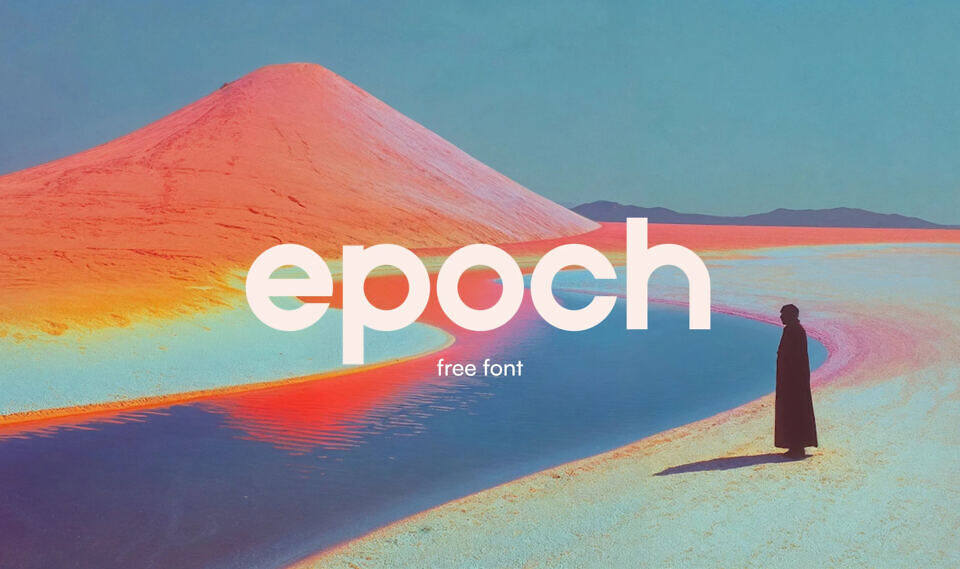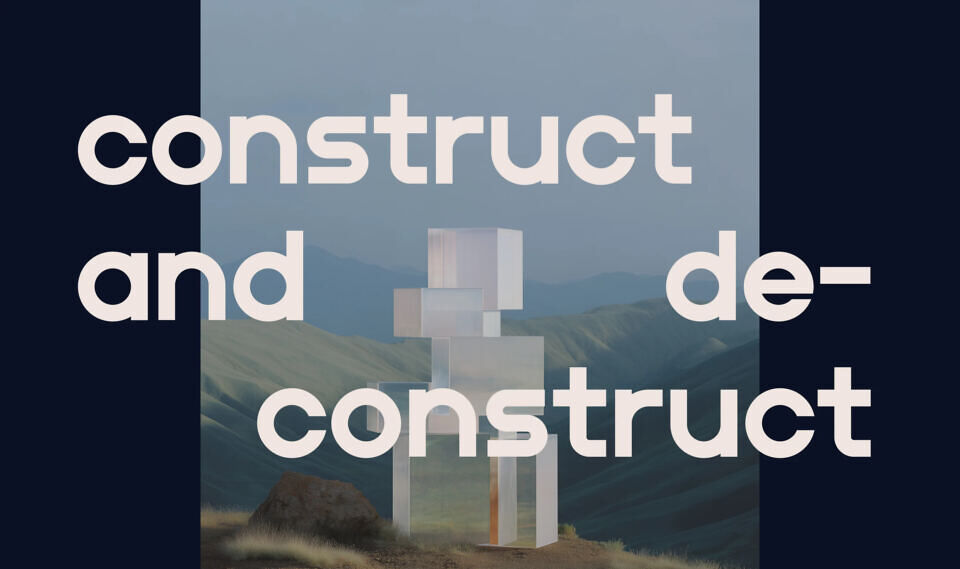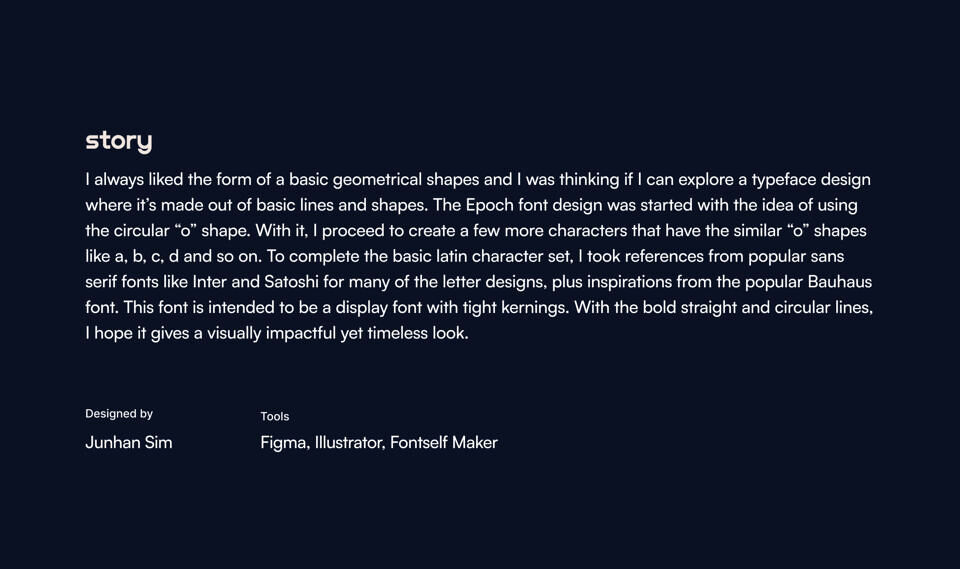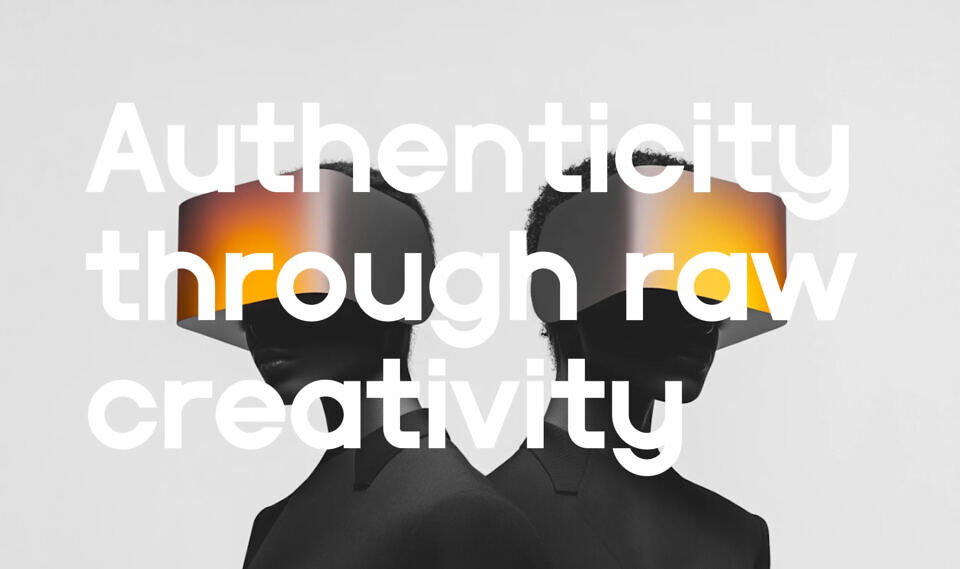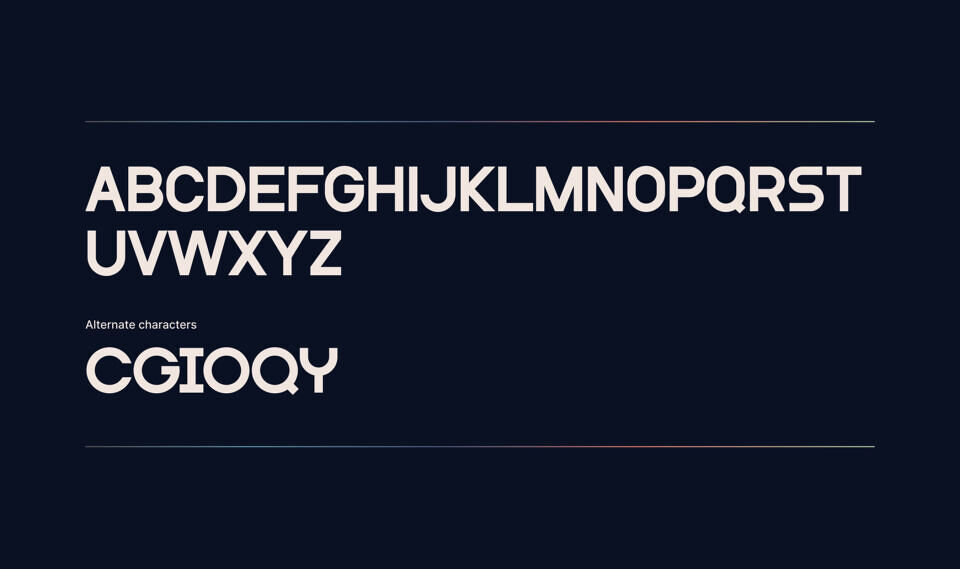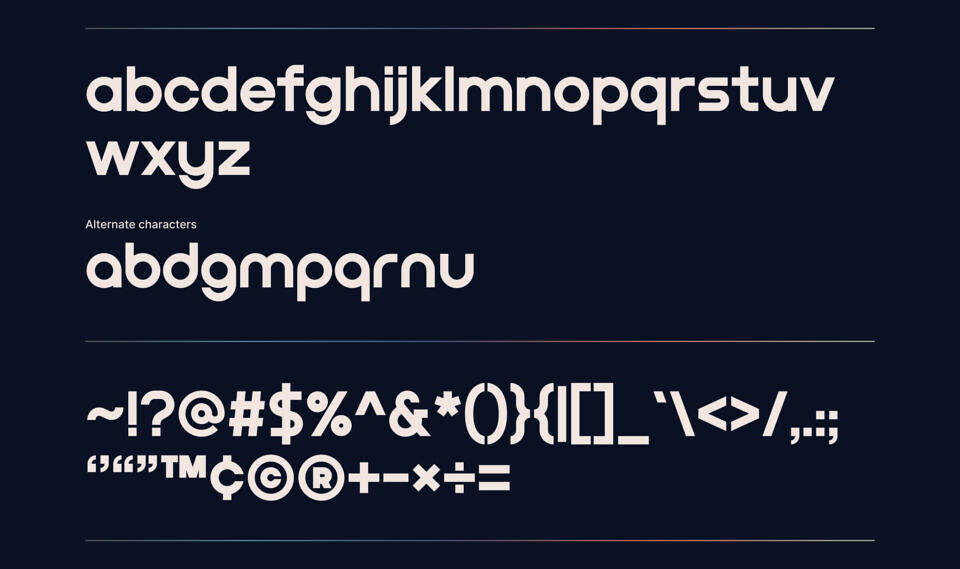
Jun Han Sim always admired basic geometric shapes and explored creating a typeface using simple lines and circles. Starting with the circular “o,” he designed characters like a, b, c, and d, drawing inspiration from sans-serif fonts like Inter and Satoshi, as well as the Bauhaus font.
Intended as a display font with tight kerning, Epoch features bold, straight, and circular lines to achieve a visually striking yet timeless aesthetic, completing the basic Latin character set with a focus on geometric simplicity.
Epoch font comes with basic latin characters including uppercases, lowercases, numbers and selected punctuations. Epoch is free and it’s suitable for display and as wordmark. You can download it for free for personal and commercial use.